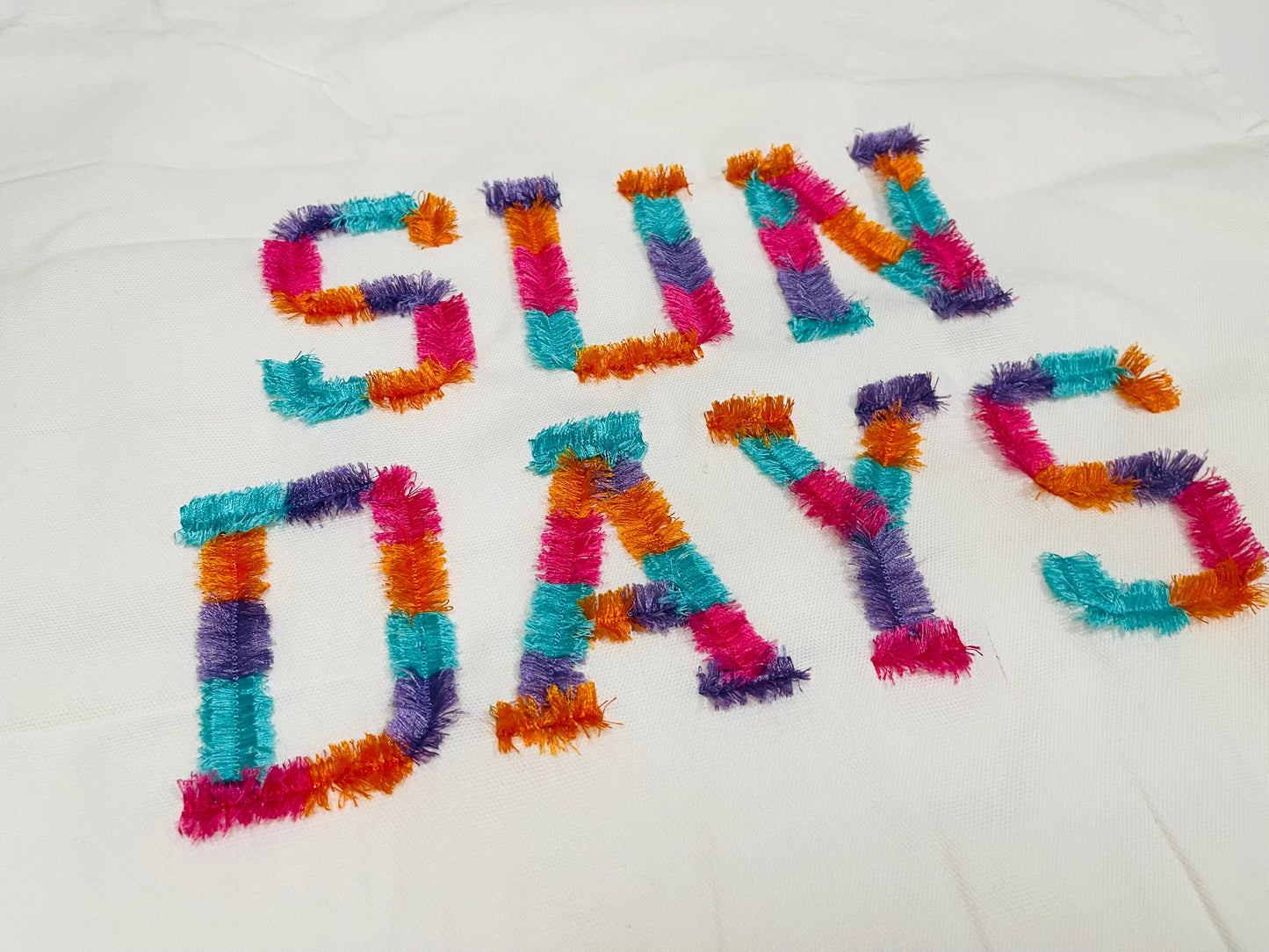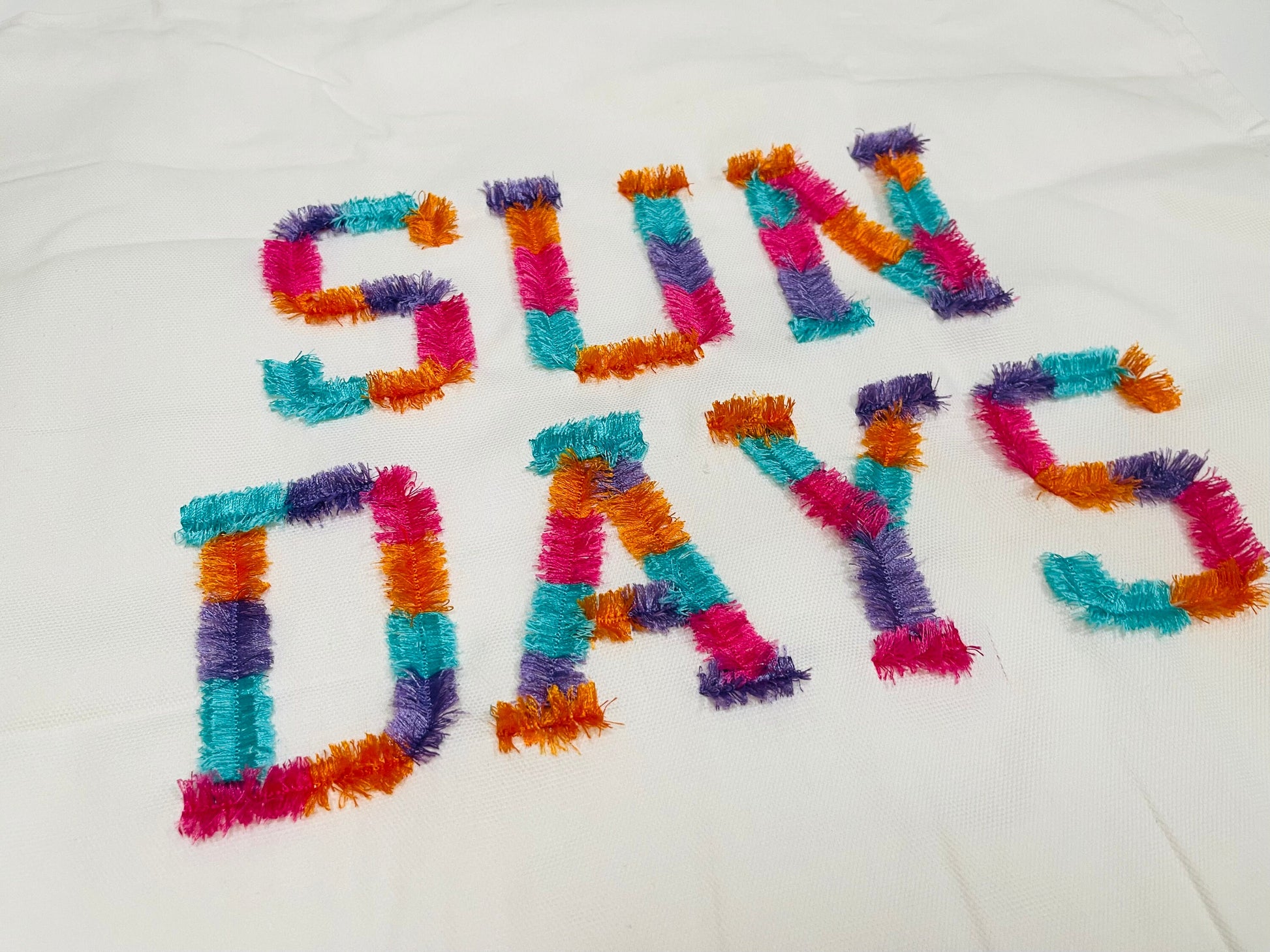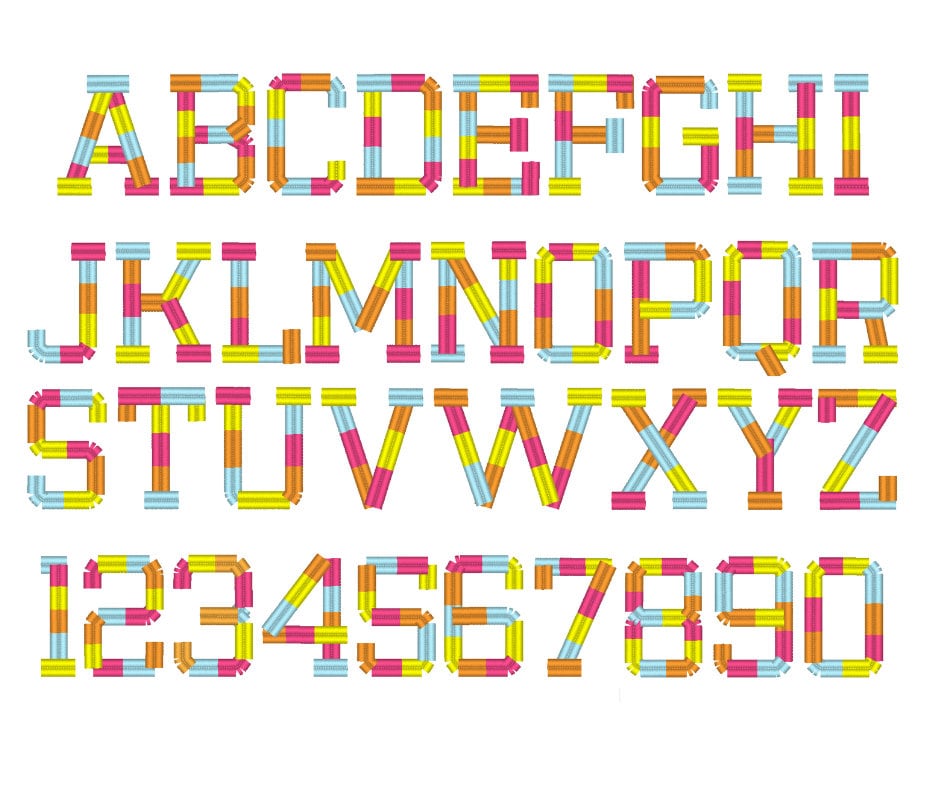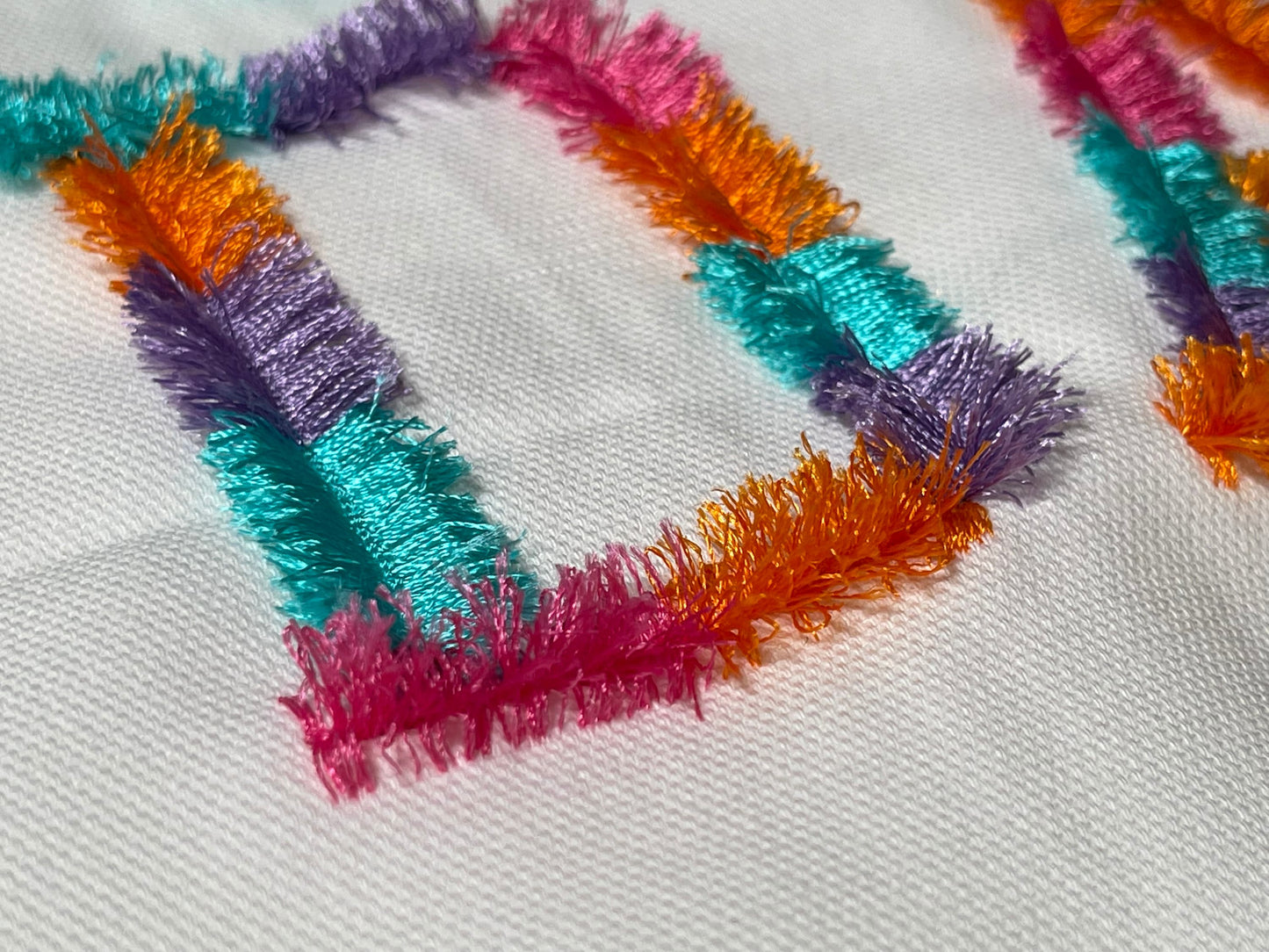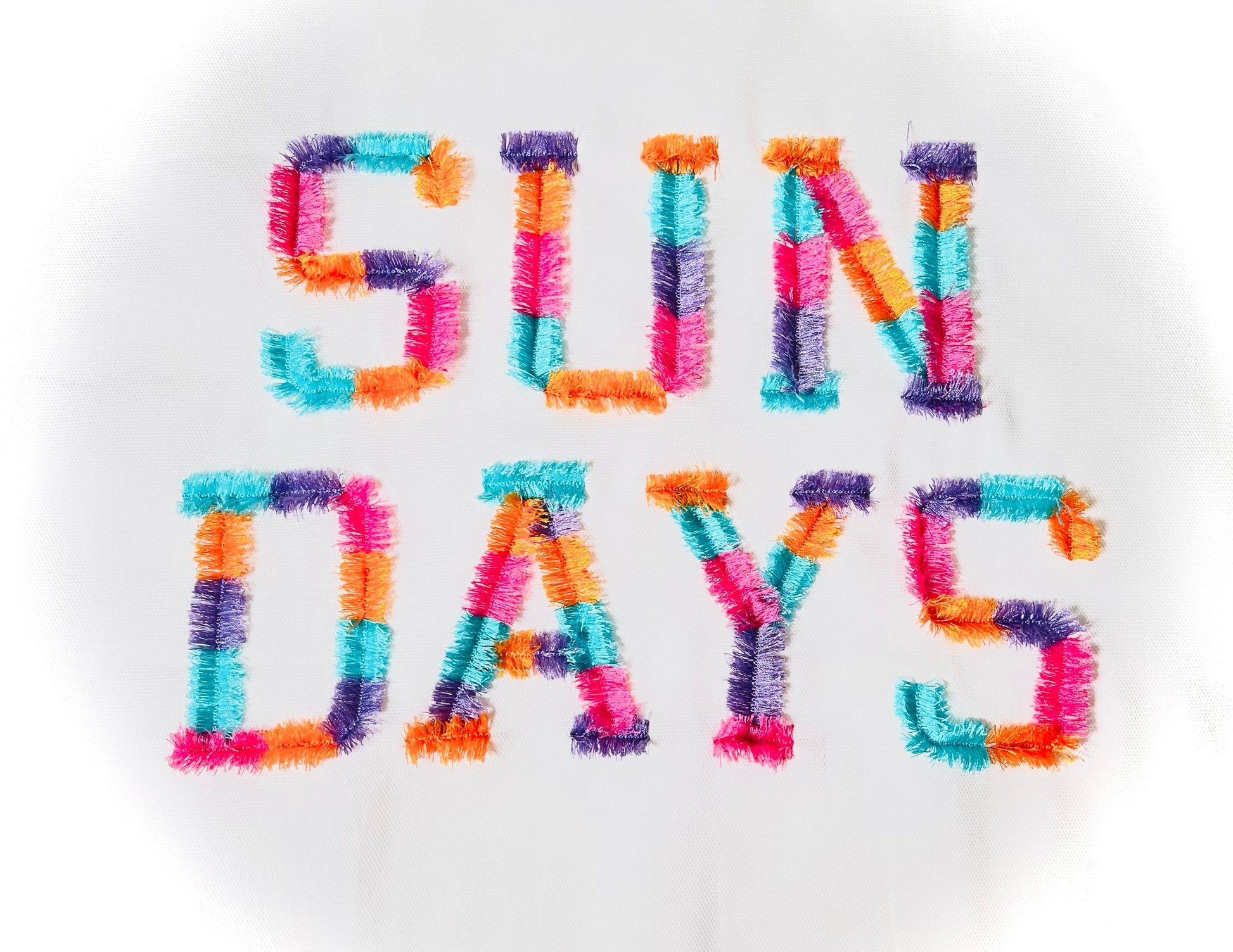
Multicolor Fringed Varsity Font
Or click to open the linkA fluffy fringed varsity font with a faux chenille look, in several colors. Made for letterman-style sweatshirts, jackets, pillows and team gifts.
Uppercase letters A to Z and numbers 0 to 9. Six sizes: 2, 2.3, 2.6, 2.9, 3.3 and 3.8 inches. The fringe is cut after stitching and is safe to wash.
- Multicolor fringed varsity font
- Uppercase A to Z, numbers 0 to 9
- 6 sizes, 2 to 3.8 in